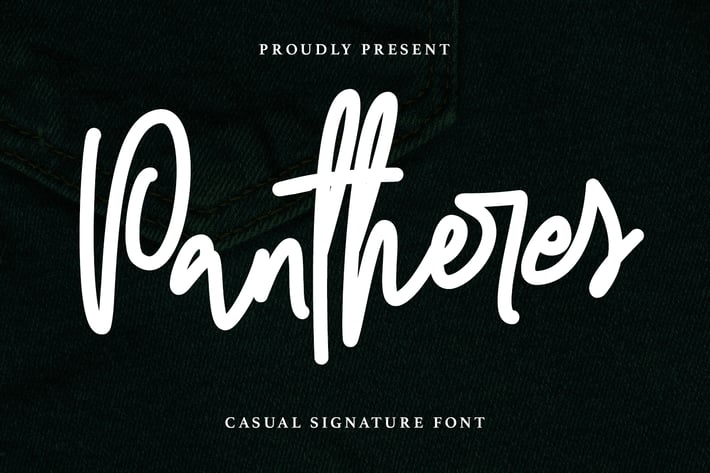
Pantheres Casual Signature Font
Give your designs an authentic brush handcrafted feel. “Pantheres Casual Signature Font” is perfectly suited to signature, stationery, logo, typography quotes, magazine, website header, branding and more.